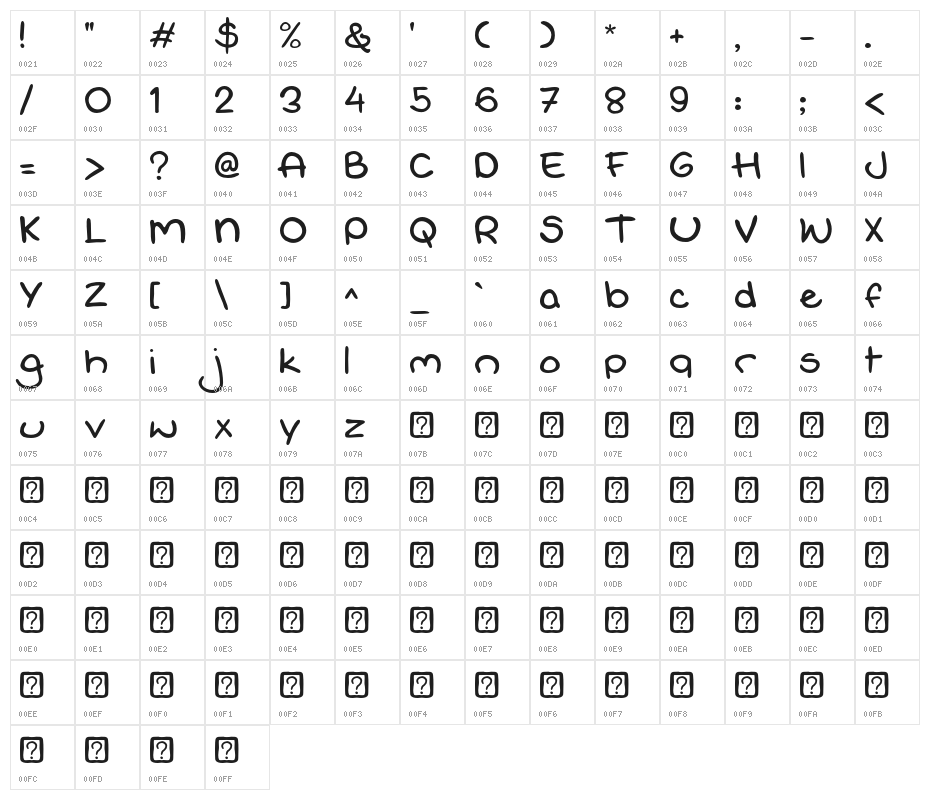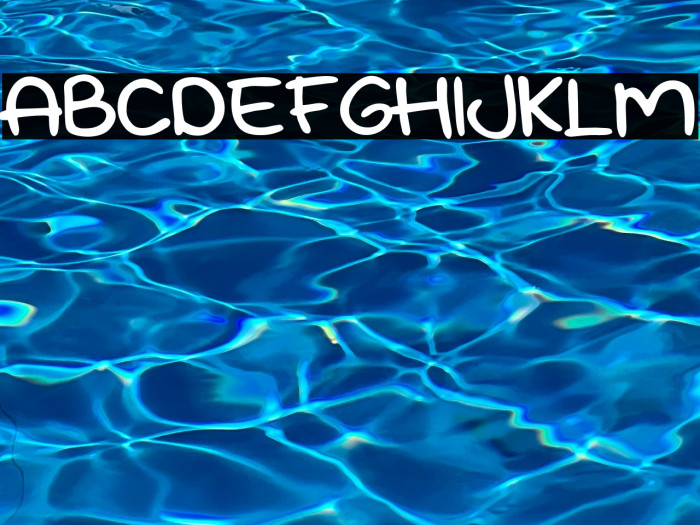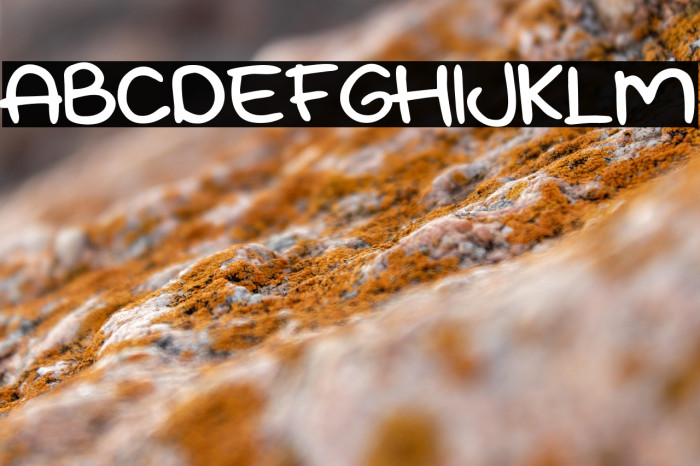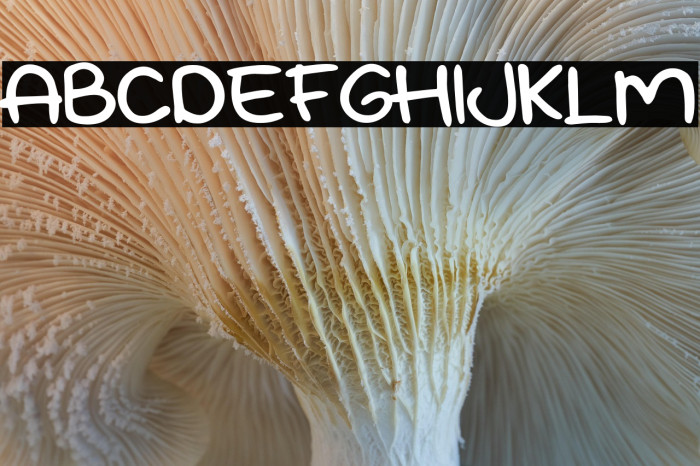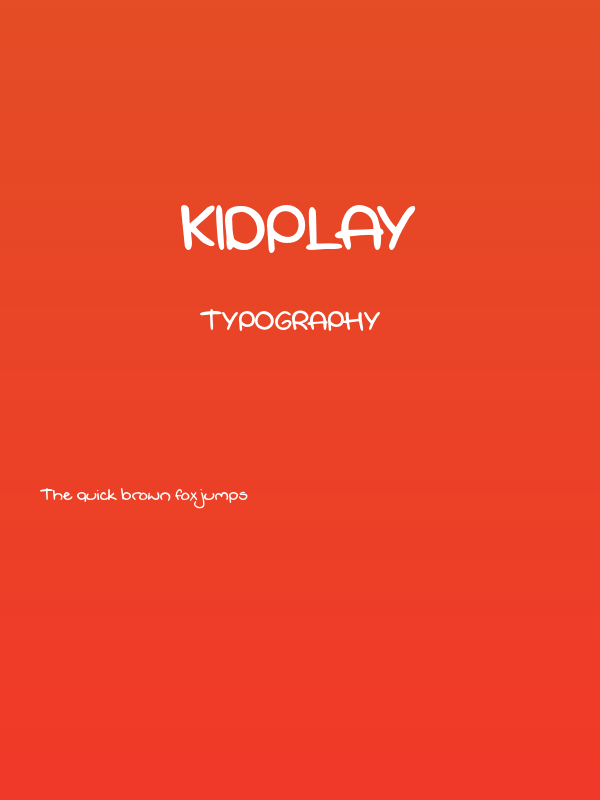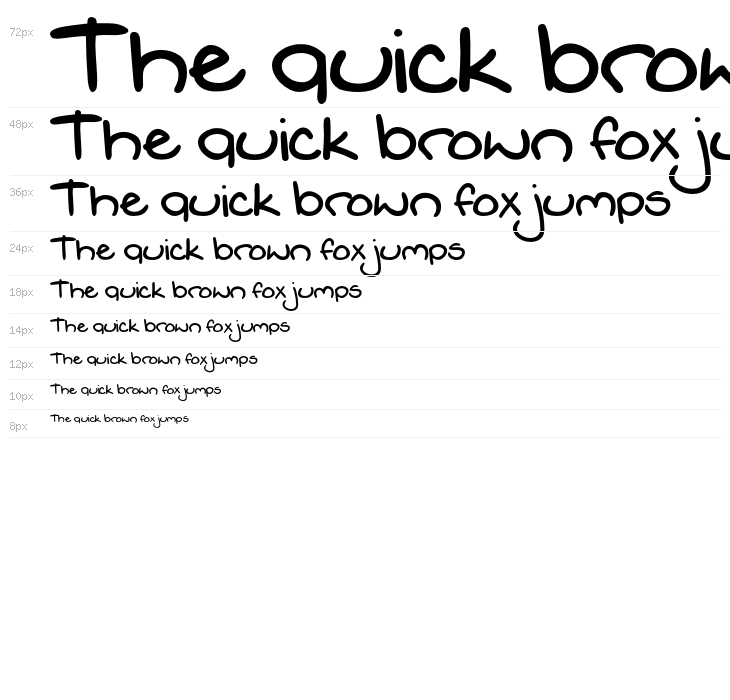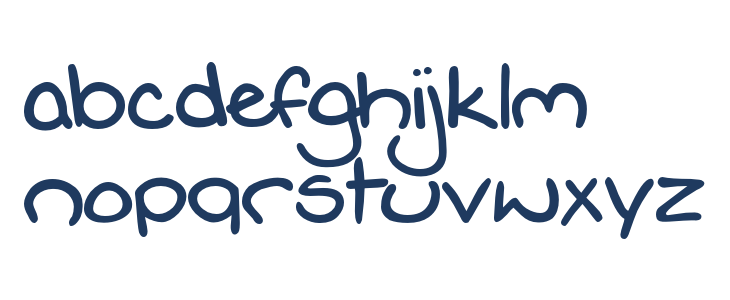
Kidplay Font
This playful and whimsical font features rounded, bubbly characters that evoke a sense of fun and creativity. The letters are slightly irregular, adding to its informal and childlike charm. The uppercase and lowercase letters maintain a consistent style, with smooth curves and a friendly appearance. Numbers and special characters are designed to match the playful aesthetic, making this font suitable for projects aimed at children or those seeking a lighthearted tone. The overall design is approachable and easy to read, making it versatile for various creative applications.
| Overall Style | Playful |
| Proposed Projects | Ideal for children's books, educational materials, playful branding, and creative posters. |